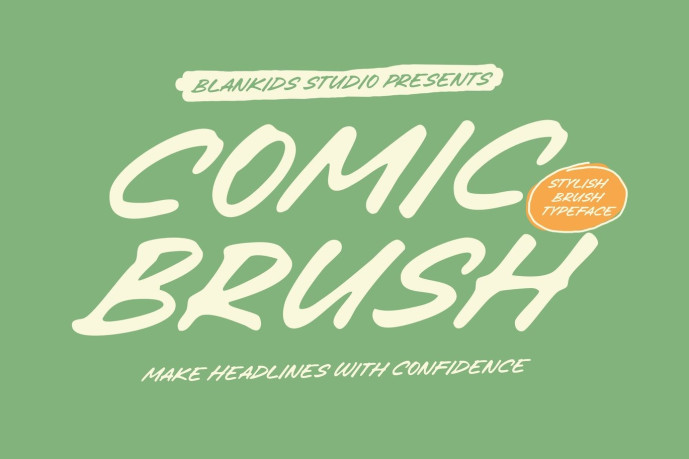
Comic Brush – a Stylish Brush Font
Designer: Blankids Studio
Bring your designs to life with Comic Brush, a bold and energetic brush typeface inspired by the expressive strokes of hand-painted lettering and classic comic aesthetics. Designed with smooth brush textures and natural movement, this font delivers a fun yet stylish personality that instantly grabs attention.
Whether you’re creating eye-catching headlines, comic book titles, branding, packaging, posters, or social media graphics, Comic Brush adds a lively and authentic handwritten feel to every project. Its bold appearance makes it highly readable while maintaining a playful, handcrafted charm that works beautifully across both digital and print designs.
From retro-inspired artwork to modern creative branding, Comic Brush is versatile enough to complement a wide range of styles. It’s perfect for designers who want typography that feels spontaneous, expressive, and full of character.
Perfect For:
Comic Book Titles
Posters & Flyers
Logo Design
Branding & Packaging
Social Media Graphics
Stickers
Product Labels
Children’s Products
Creative Editorial Design